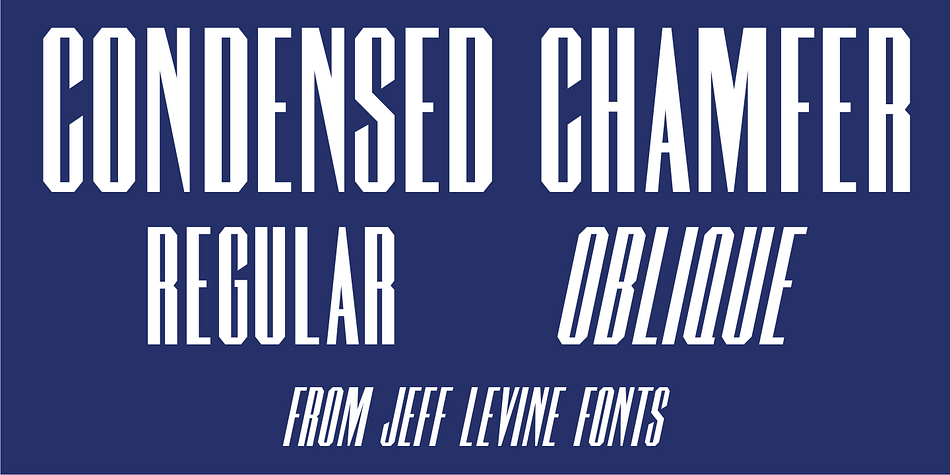
Designed by Jeff Levine, Condensed Chamfer JNL is a display sans font family. This typeface has two styles and was published by Jeff Levine Fonts.
Sheet music published in the 1860s for “The Soldier’s Chorus” [from the Gounod opera “Faust”] had the title and the arranger’s name hand lettered in a bold, condensed chamfer font.
This was the basis for Condensed Chamfer JNL, which is available in both regular and oblique versions.